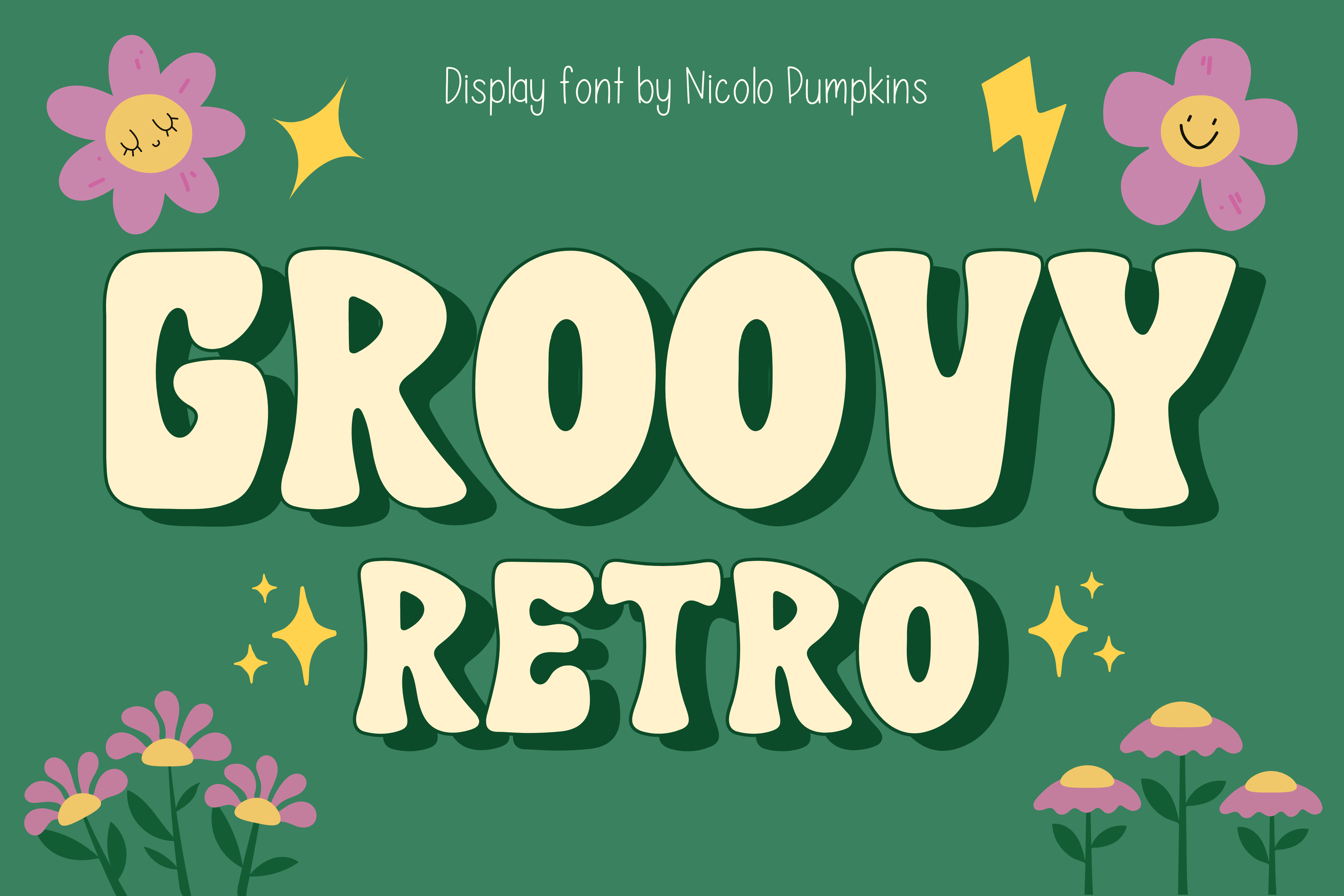
Groovy Retro is a cute, groovy, and retro display font suitable for designing T-shirts, tote bags, hats, stickers, wedding invitations, logos, cards, quotes, and more! Groovy Retro will make any creative idea stand out and stunning!